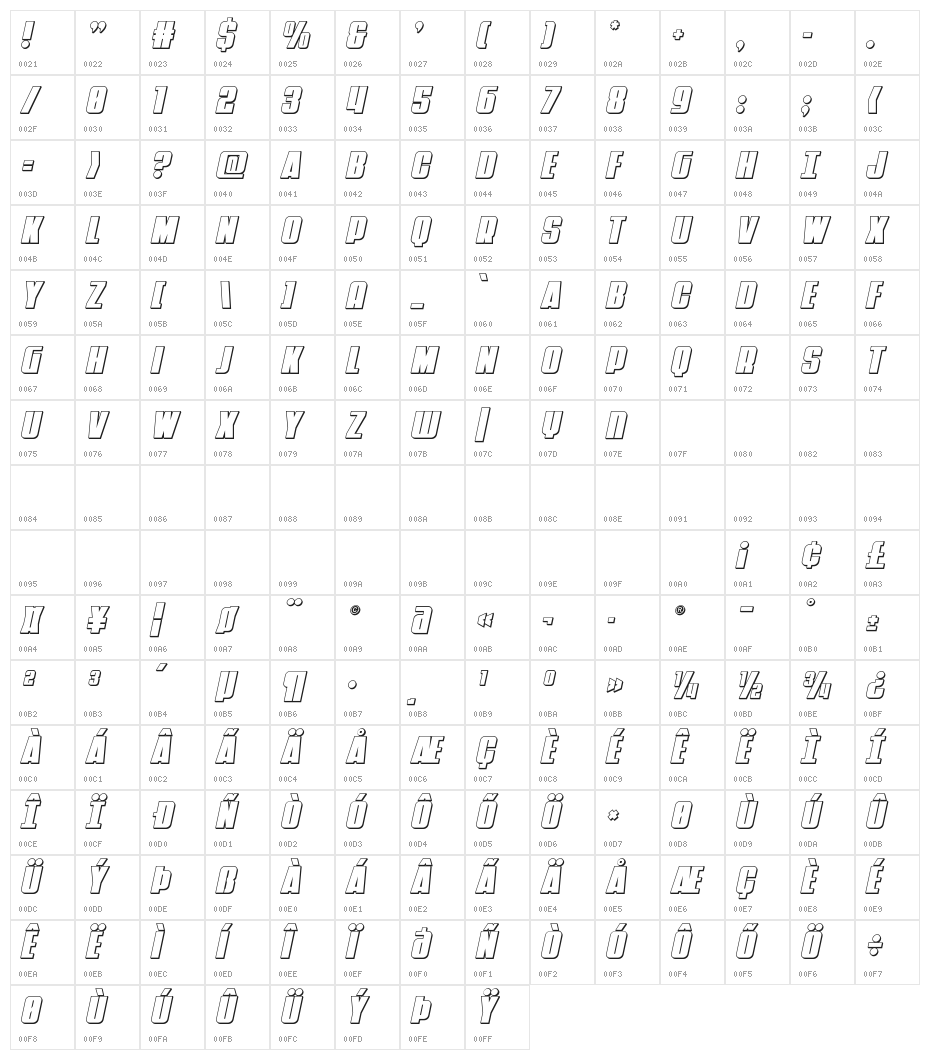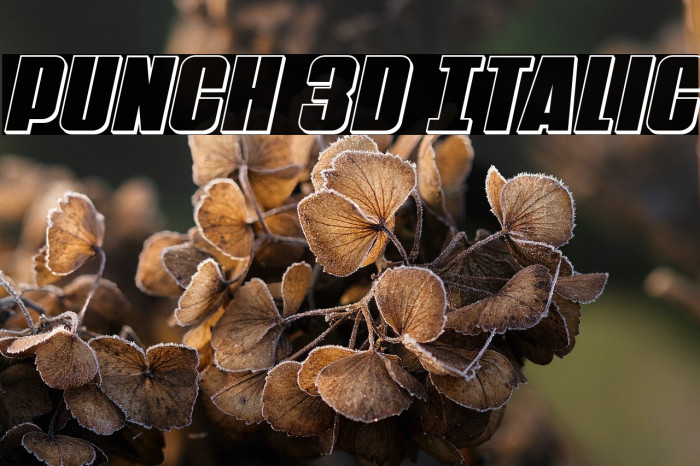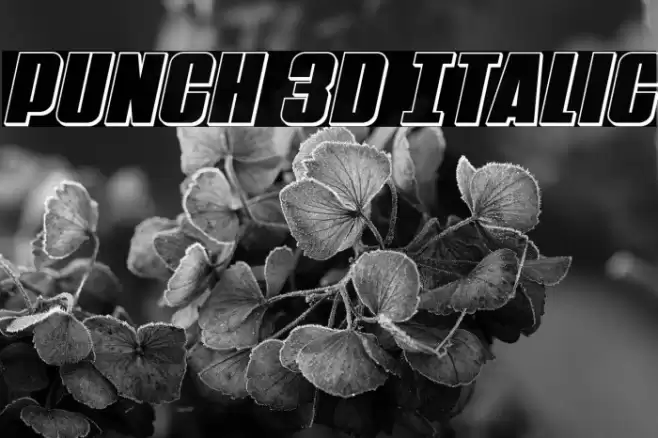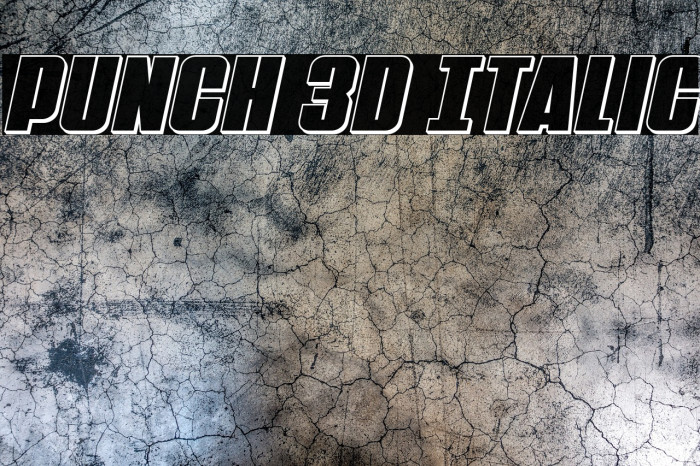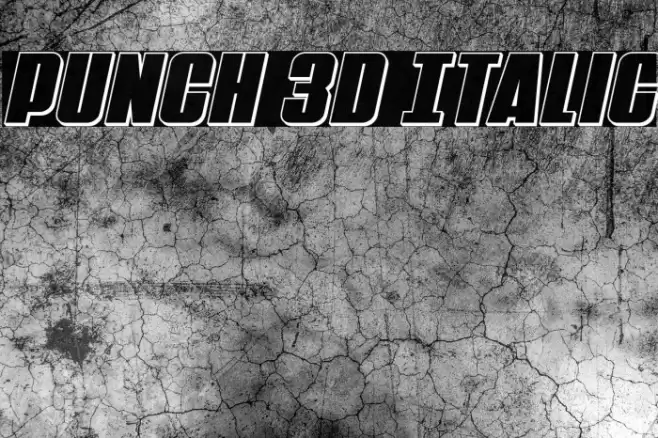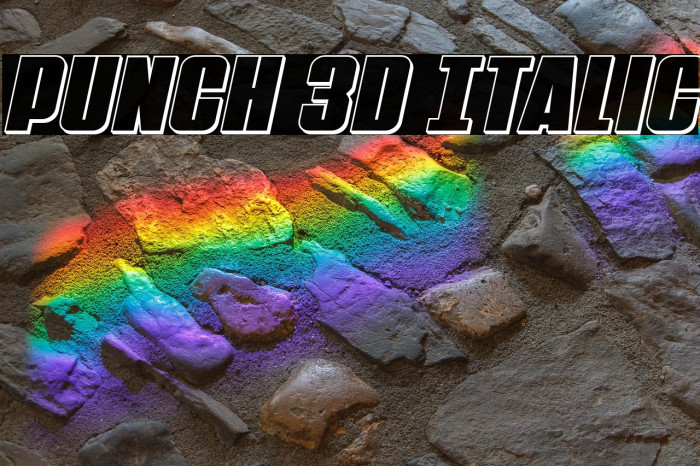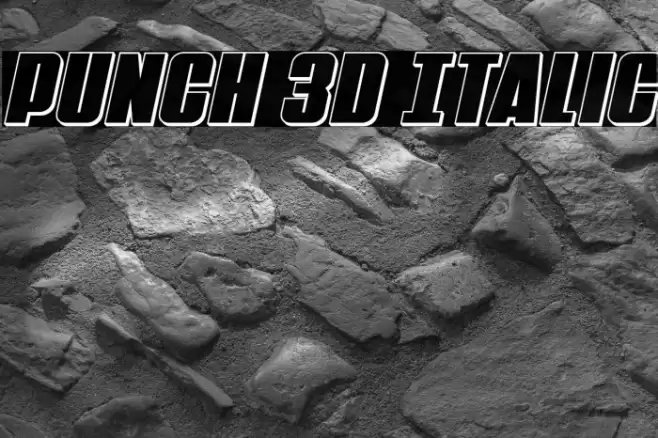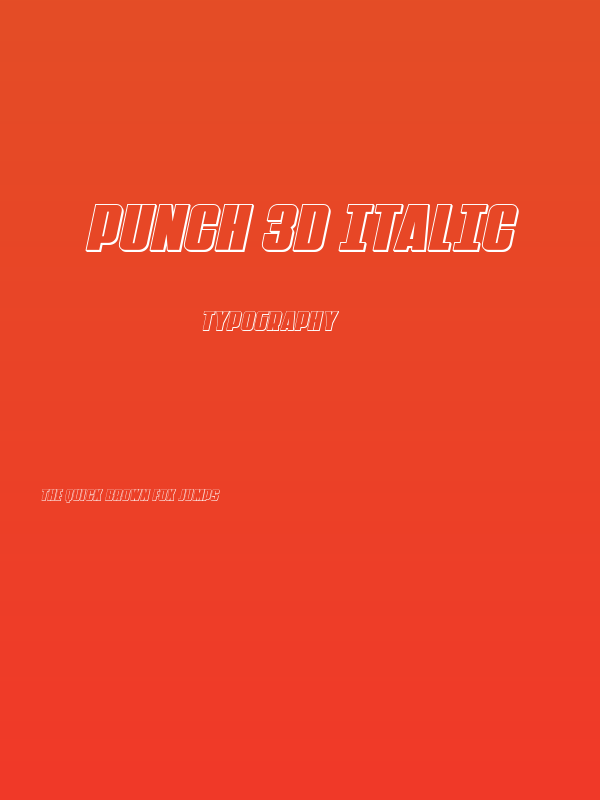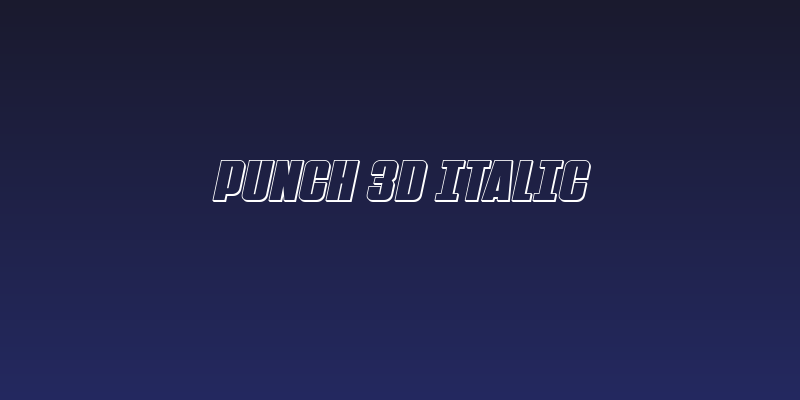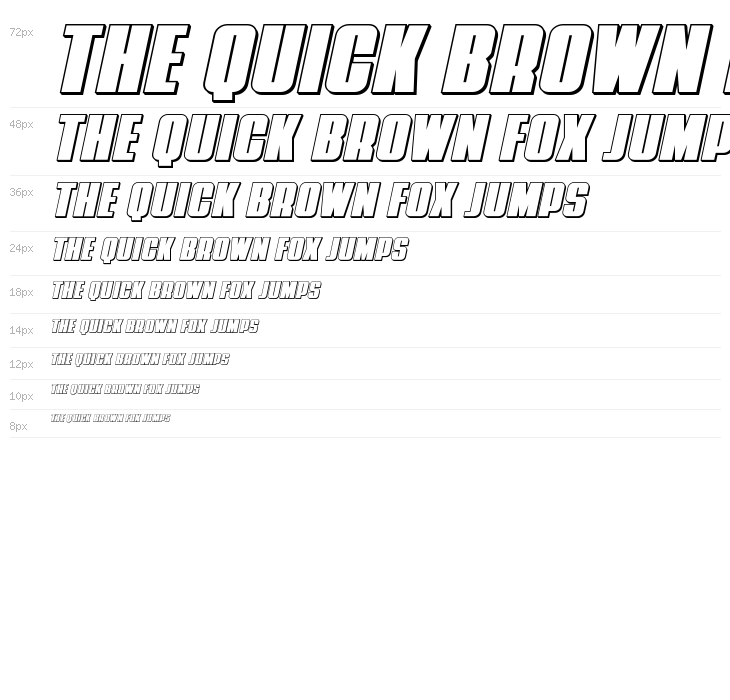
Punch 3D Italic Font
Punch 3D Italic Description
This font features a bold, three-dimensional style with a distinct italic slant, giving it a dynamic and impactful appearance. The characters are outlined, creating a shadow effect that enhances the 3D illusion. The uppercase letters are prominent and assertive, while the numbers and special characters maintain the same boldness and style. The font's design is suitable for creating eye-catching headlines and titles, making it ideal for projects that require a strong visual impact. Its unique style is perfect for branding, posters, and any design that aims to stand out.
| Proposed Projects | Ideal for branding, posters, headlines, and any design needing a strong visual impact. |